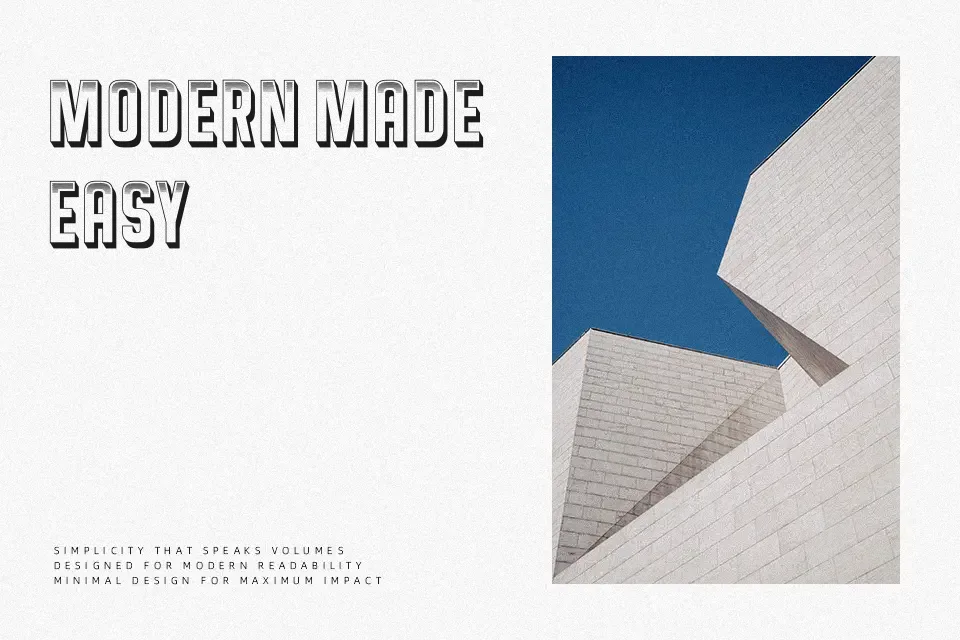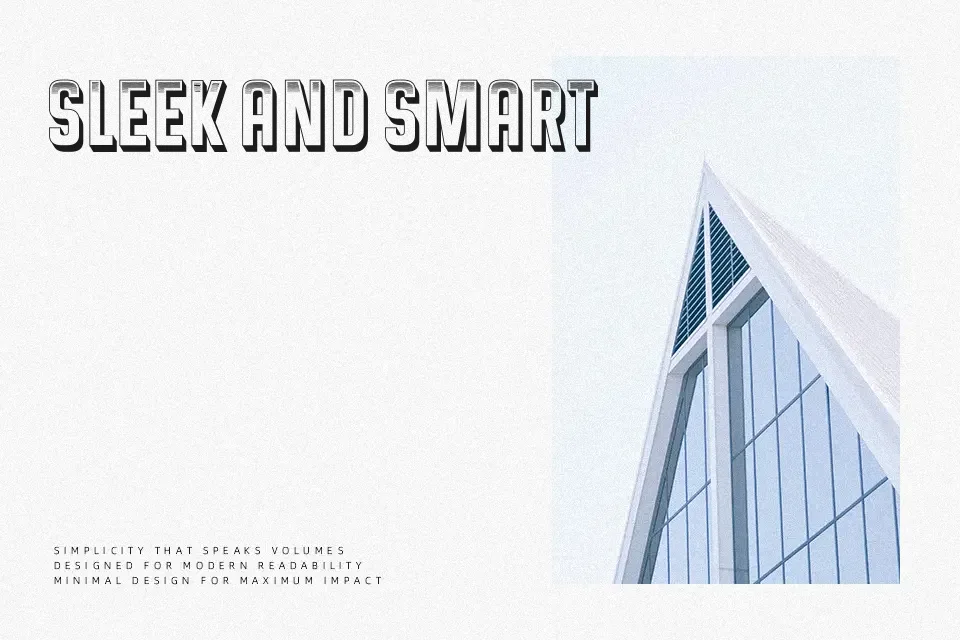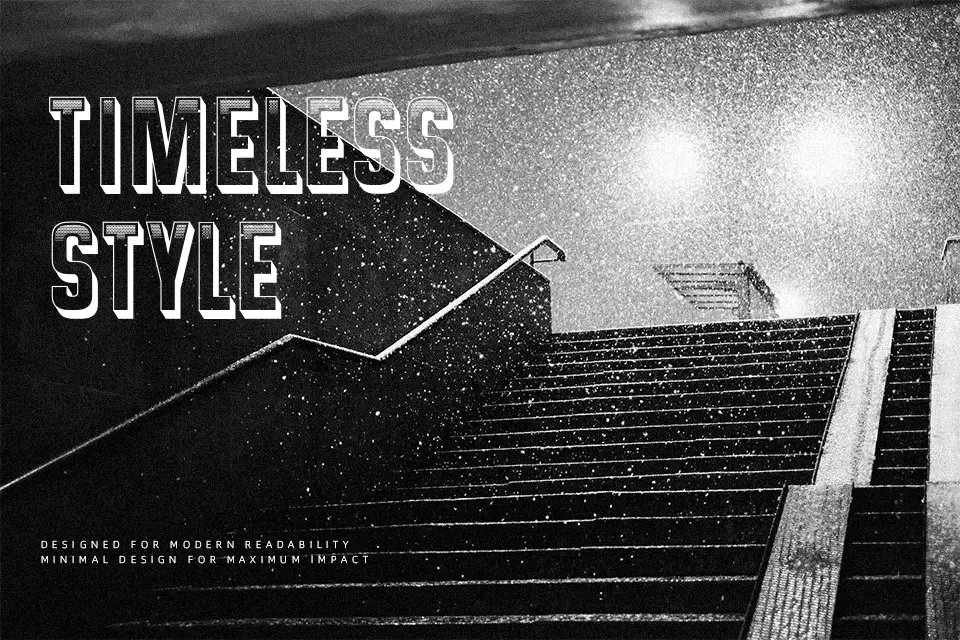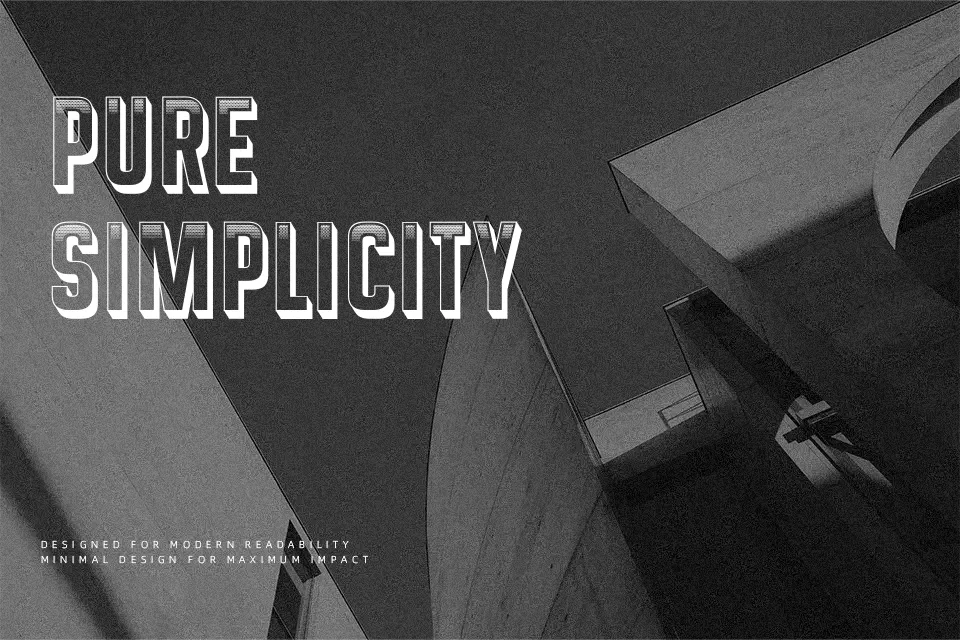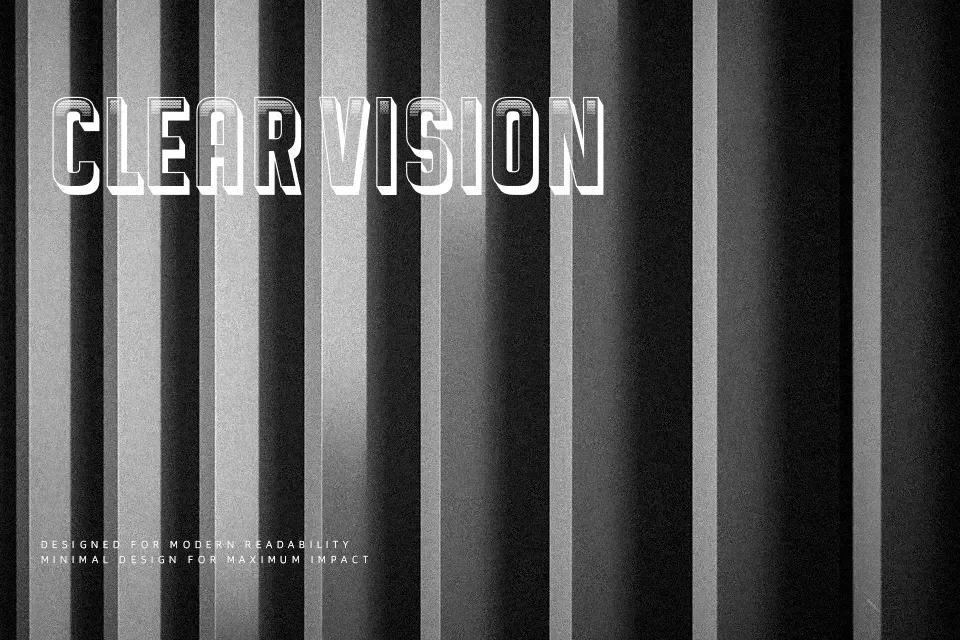
Tadya Font
Tadya Font is defined by sturdy sans serif construction, compact character width, and consistent stroke thickness across uppercase letterforms. Moderate tracking and disciplined kerning ensure that the design maintains crisp definition across large scale banners, athletic branding, and bold merchandise graphics. Straight terminals and even horizontal baselines provide the typeface with a structured, confident rhythm in prominent display environments. Heavy stroke weights significantly enhance visibility from a distance, making headlines stand out effortlessly. However, the uniform density and tight interior counters reduce reading comfort across extended paragraphs and tiny technical labels.
Best For: poster headlines, merchandise graphics, athletic branding, event banners
Not Ideal For: continuous body text, legal contracts, dense editorial columns, small interface labels
Perfect for advertising, headline, and logo, with a bold and display style.